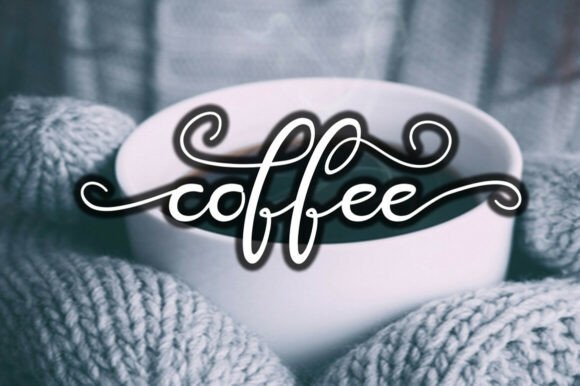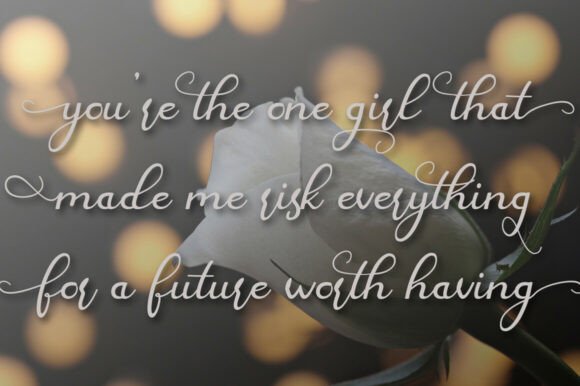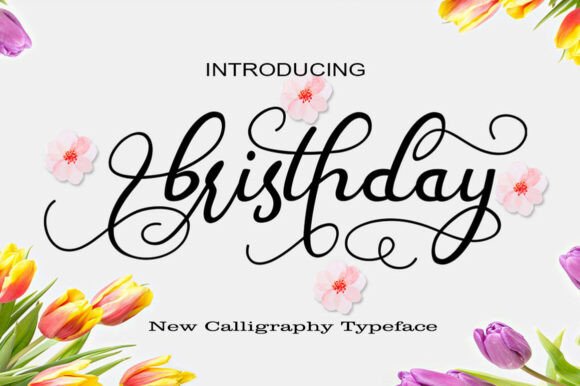
The Bristhday Font: A Masterclass in Decorative Elegance
I’ll never forget the time I was working on a wedding invitation project, and my client asked for a font that would make their special day feel like a fairytale. I scoured the internet, tried countless fonts, but nothing seemed quite right. That was until I stumbled upon the Bristhday font. Its dramatic swashes and intricate loops danced across the page, creating a visual rhythm that was both romantic and festive. I knew I had found the perfect fit.
- ✨ Elegant and ornate design that’s perfect for luxury branding and celebratory events
- ✅ High-end calligraphy feel that’s sure to impress
- 💫 Utilizes OpenType features for stunning flourished layouts
- 🔍 PUA encoding makes special characters and decorative elements easily accessible
- ⚠️ May require some time to get used to, especially for beginners
- 🤔 Can be overwhelming to pair with other fonts; best used as a statement piece
The Story Behind the Bristhday Font
The Bristhday font was inspired by traditional calligraphy and the art of hand-lettering. Its creator, a talented type designer, aimed to craft a font that would evoke the feeling of luxury and sophistication. With its intricate loops and dramatic swashes, the Bristhday font is sure to add a touch of elegance to any design project.
| What is the Bristhday font best used for? | The Bristhday font is perfect for luxury branding, wedding invitations, and celebratory event signage. |
| Is the Bristhday font easy to use? | While the Bristhday font may require some time to get used to, it’s relatively easy to use, especially for those familiar with OpenType features and glyphs. |
| How do I access the special characters and decorative elements in the Bristhday font? | With PUA encoding, all special characters and decorative elements are easily accessible through the font’s glyphs panel or OpenType features. |